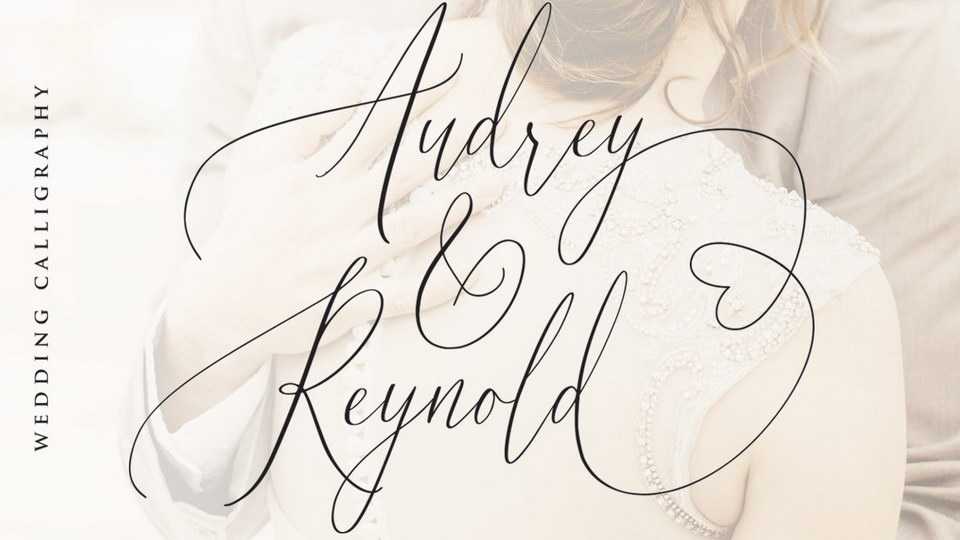
Download Audrey & Reynold Script a luxury modern calligraphy font with contemporary, sophisticated accents. It is perfect for wedding branding, wedding invites and cards, and maybe for red wine label.